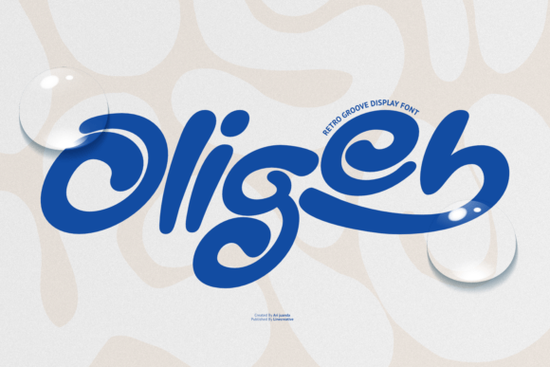
Oligeb Font is a standout choice for anyone looking to add a retro vibe to their design projects. This bold display font captures the essence of the 70s with its smooth curves, playful swashes, and expressive letterforms. Whether you're working on a vintage brand, a music poster, or a social media graphic, Oligeb brings a unique personality that’s both nostalgic and fresh. Its handcrafted feel makes it ideal for logos, packaging, and other creative applications where a little flair goes a long way.
Designed with versatility in mind, Oligeb includes uppercase and lowercase characters, numerals, and punctuation. It also supports multiple languages, making it a great option for international projects. The font’s dynamic swashes and flowing shapes give it a lively, almost musical quality, perfect for designs that need a bit of movement and energy.
What Makes Oligeb Unique?
Oligeb stands out because of its authentic retro groove style. Unlike many fonts that try to mimic the past, this one feels genuinely inspired by the era. The letterforms have a handcrafted look that adds warmth and character to any project. This makes it especially useful for branding that wants to feel personal and meaningful rather than generic.
One of the key features of Oligeb is its strong branding potential. Whether you’re creating a logo for a coffee shop, a festival poster, or a piece of merchandise, this font helps your work stand out. Its expressive nature ensures that your designs don’t just look good they feel alive.
Who Can Benefit from Oligeb?
Designers, crafters, and small business owners will find Oligeb incredibly useful. It’s perfect for those who want to create eye-catching visuals without relying on overused fonts. For print-on-demand sellers, the font’s versatility means it can be used across a wide range of products, from t-shirts to packaging. Creative hobbyists will appreciate how easy it is to use while still offering a high level of artistic expression.
If you’re into vintage aesthetics, Oligeb fits right in. It works well for surf and beach lifestyle designs, music posters, and anything that needs a retro touch. Its multilingual support also makes it a practical choice for global audiences.
How to Use Oligeb Effectively
When using Oligeb, consider the context of your design. Because it’s a display font, it works best in headlines, logos, and other prominent areas. Avoid using it for large blocks of text, as it may become hard to read. Instead, pair it with simpler fonts for balance and clarity.
Experiment with different sizes and weights to see what works best for your project. The font’s swashes and curves can add visual interest, but they should complement, not overwhelm, the overall design. Try using it in combination with bold colors or retro patterns to enhance its impact.
Before finalizing your design, make sure to test Oligeb in different formats and sizes. This will help you understand how it performs in real-world scenarios. Keep your goals in mind whether it’s branding, advertising, or personal projects and let the font support your vision.
For a quick reference, here’s a checklist to help you get the most out of Oligeb:
- Use it for headlines, logos, and display text only.
- Pair it with simple, clean fonts for balance.
- Test it in different sizes and contexts.
- Explore multilingual support if needed.
- Combine it with retro colors or patterns for maximum impact.